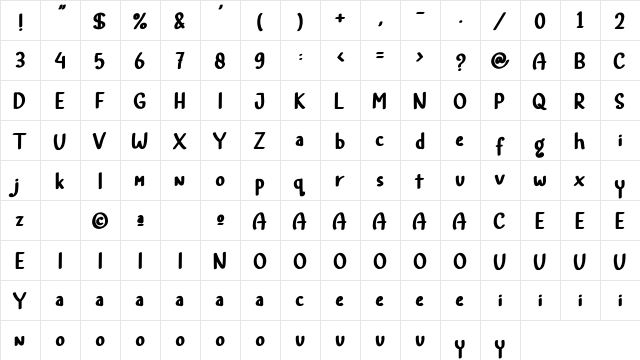
Rainbow Land Regular
| Foundry | RantauType |
| Designer | Yudi Pratama Chandra |
Design Context for Rainbow Land Typeface
Rainbow Land is a composed and adaptable typeface that performs quietly and consistently across a wide range of design contexts.